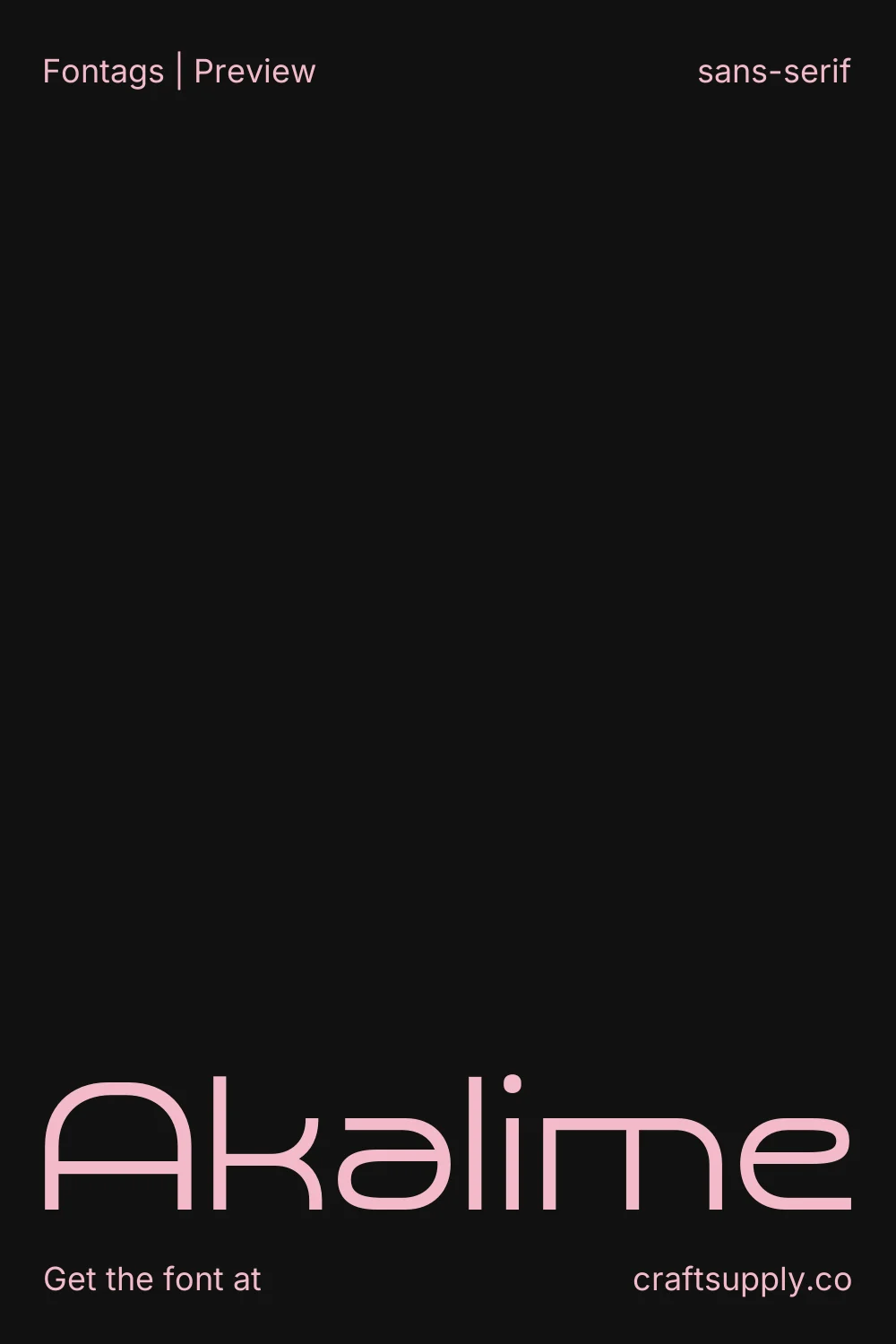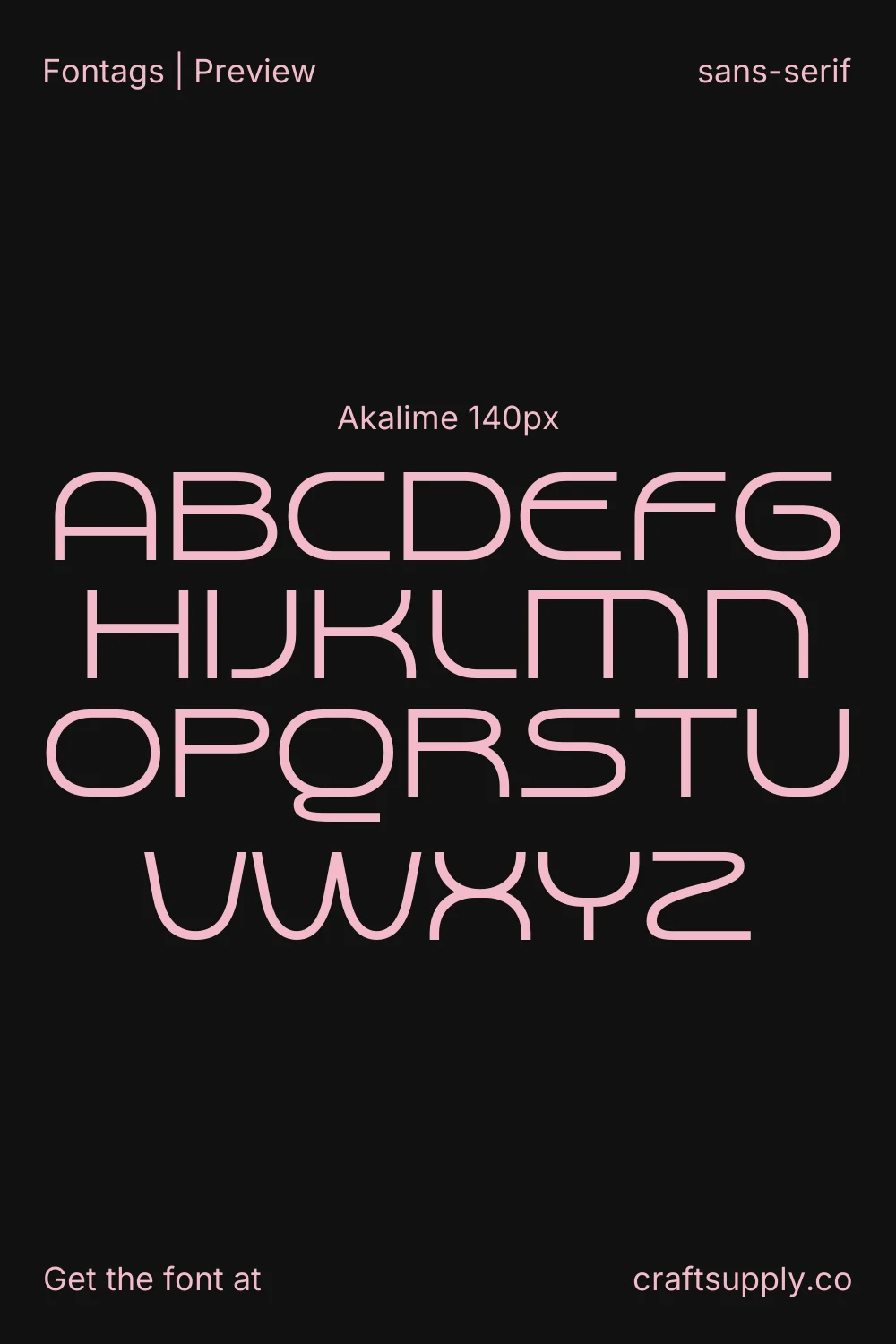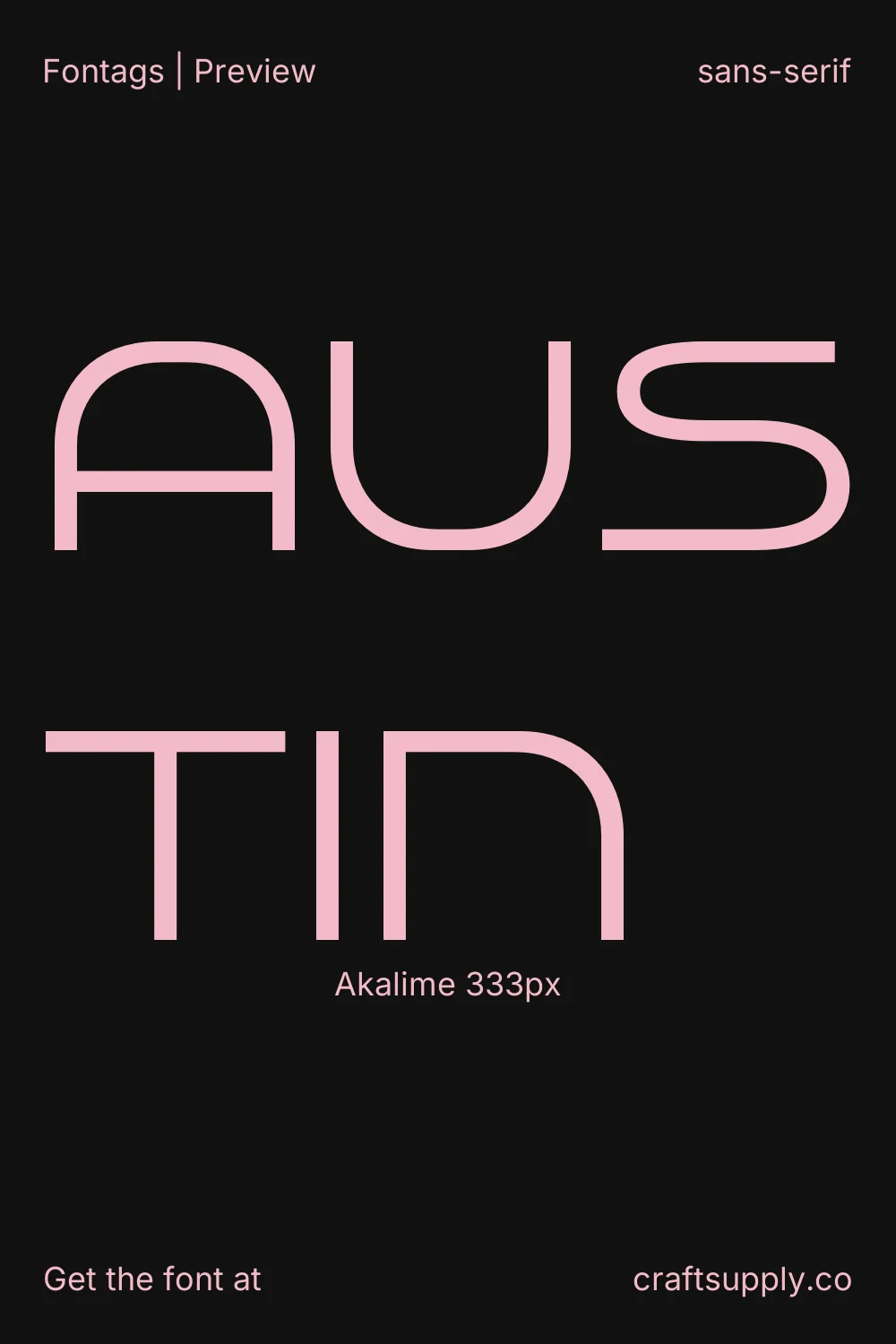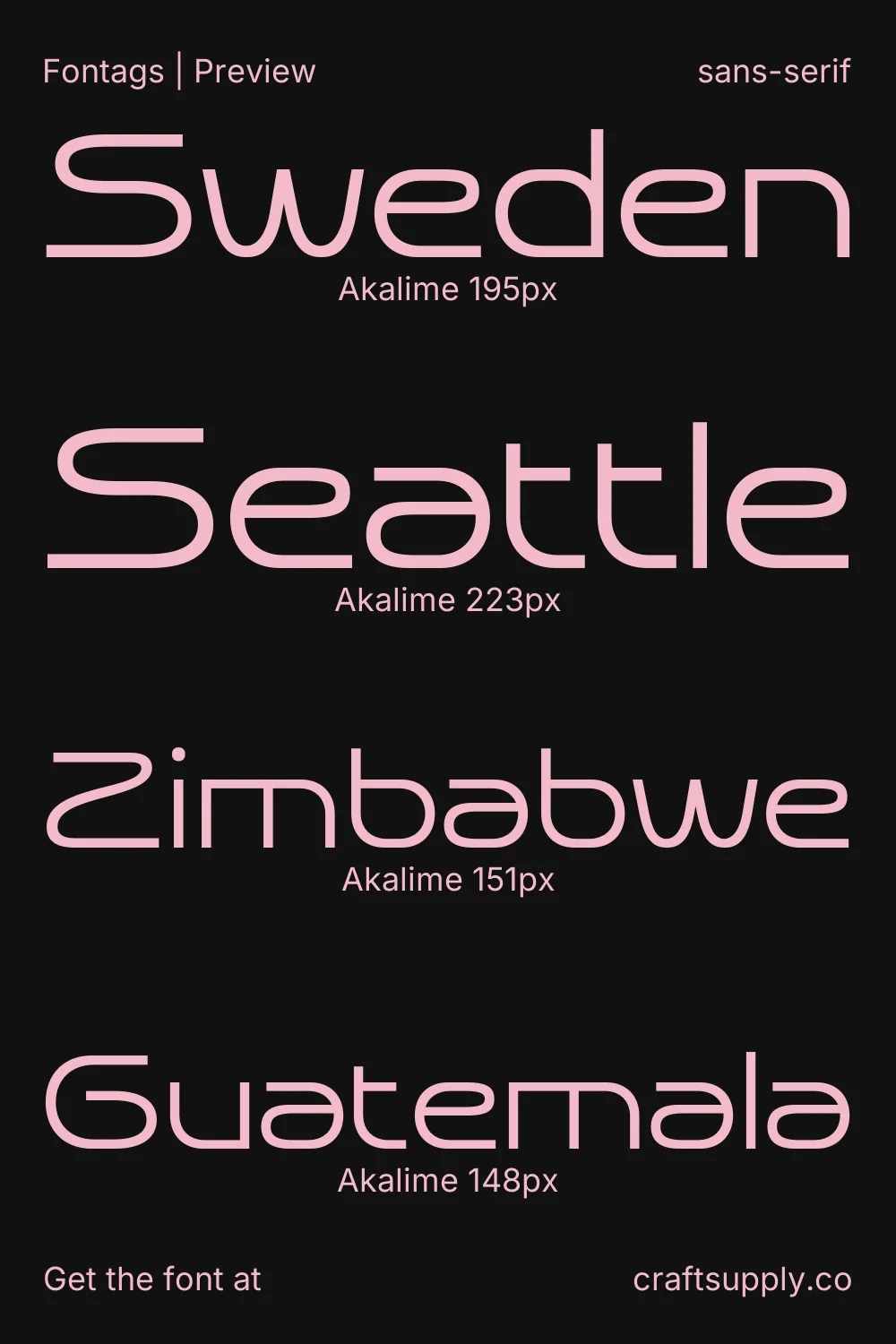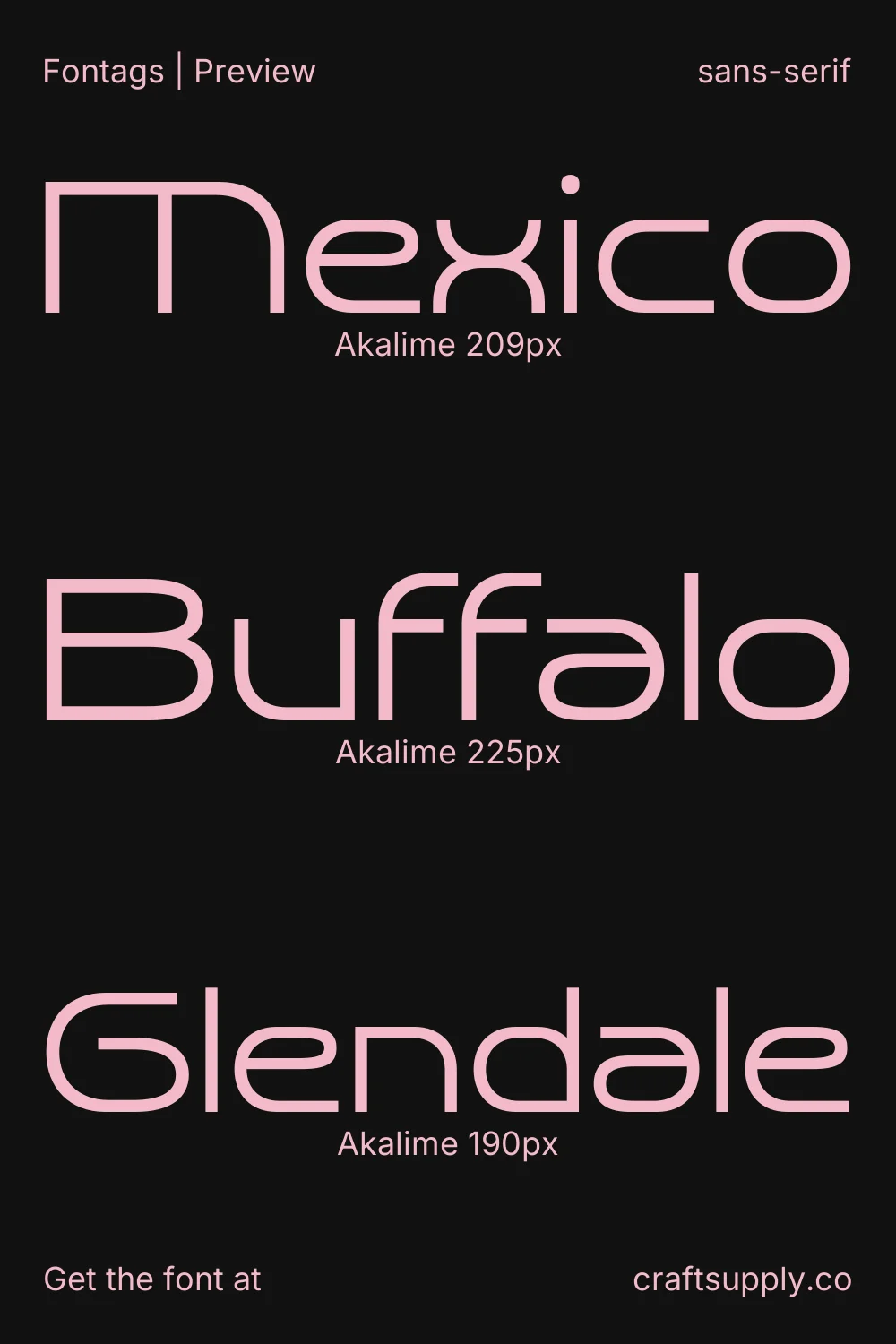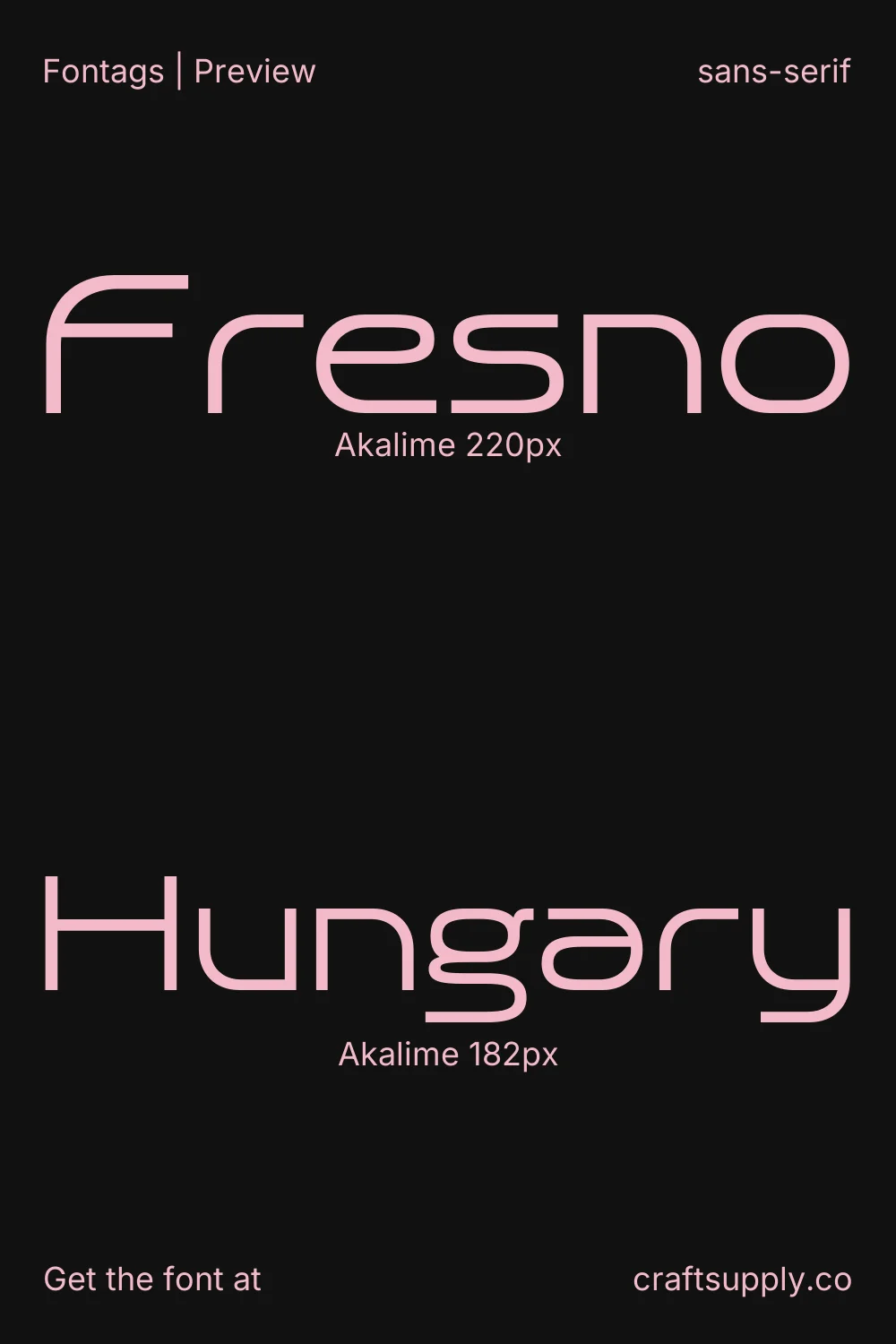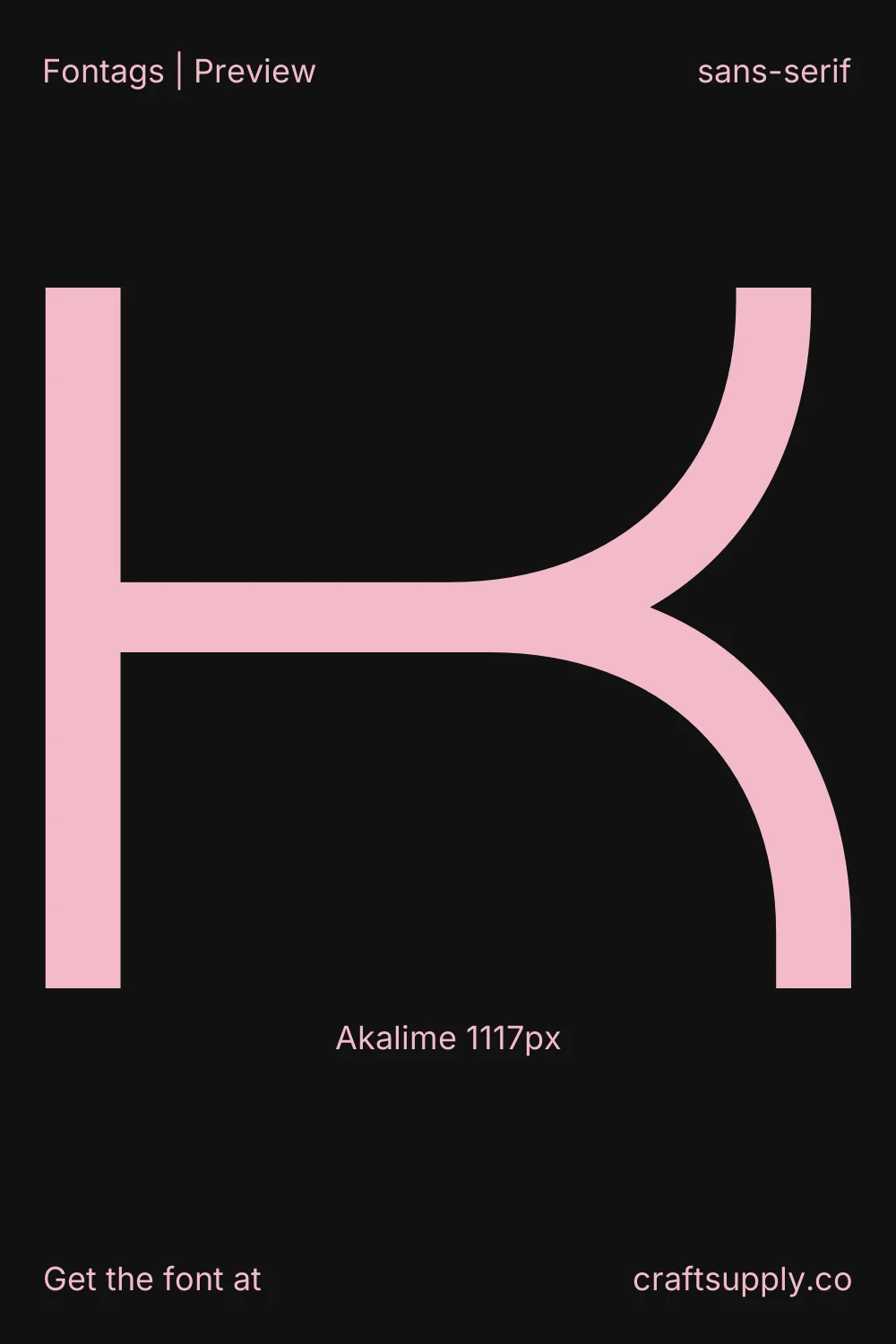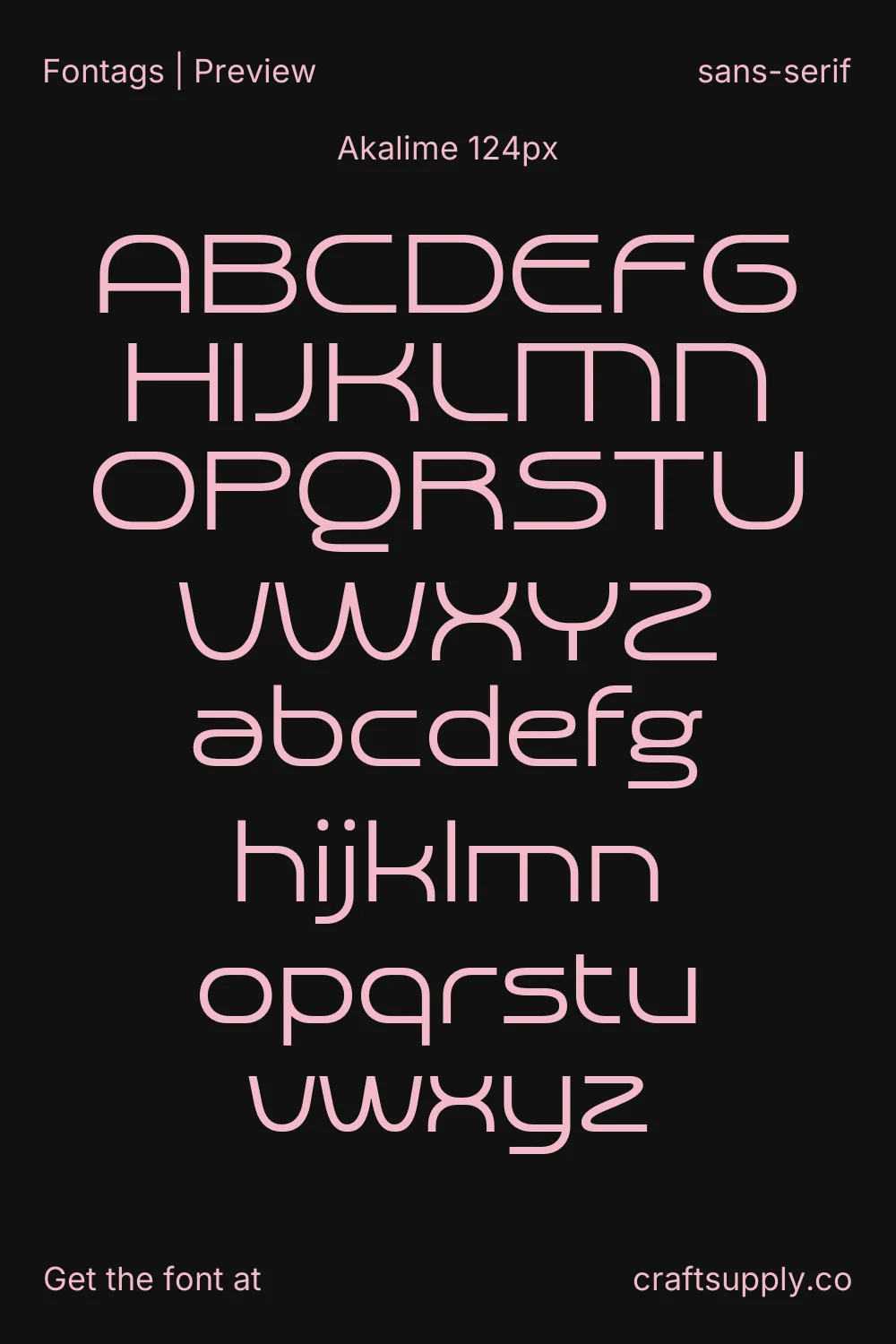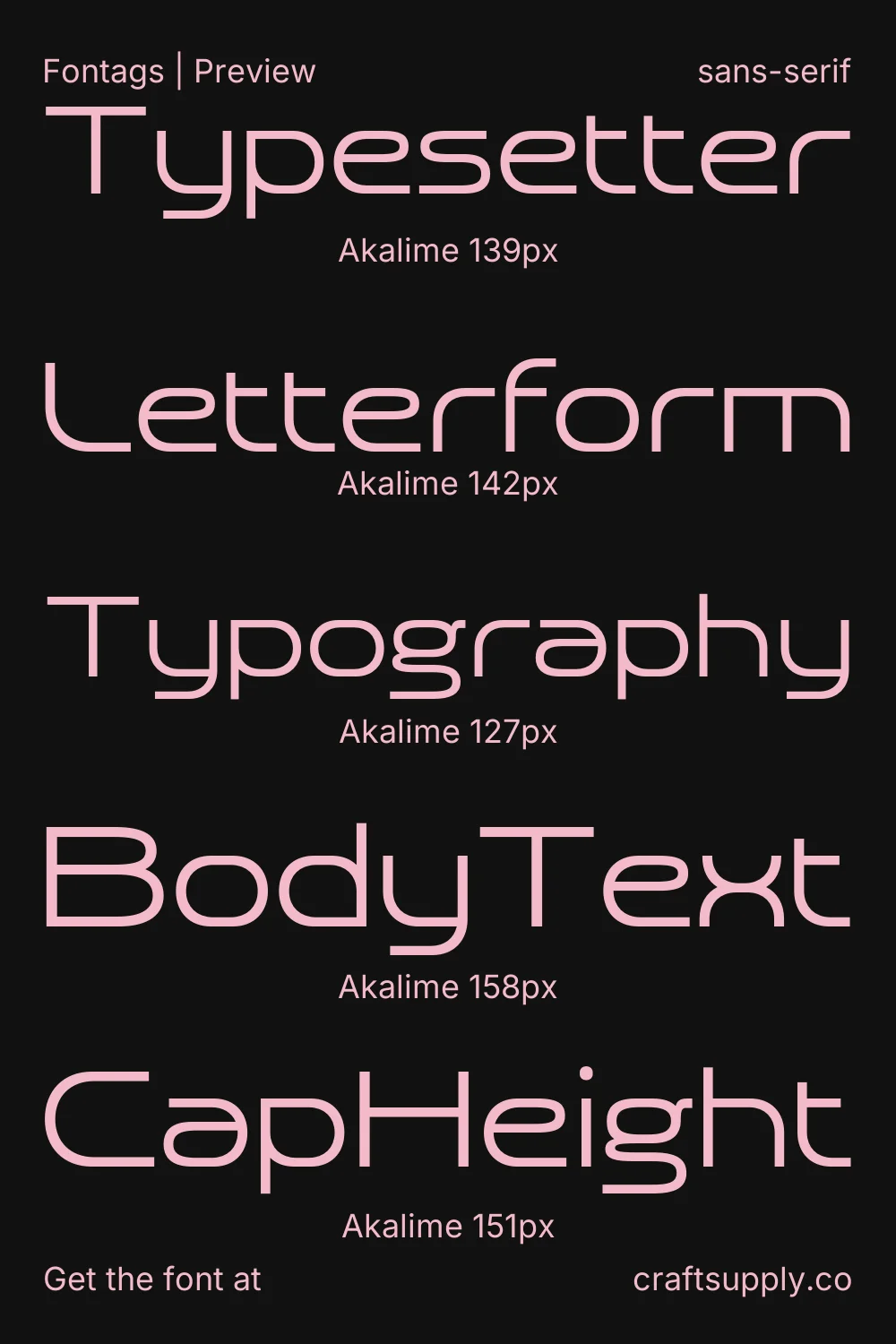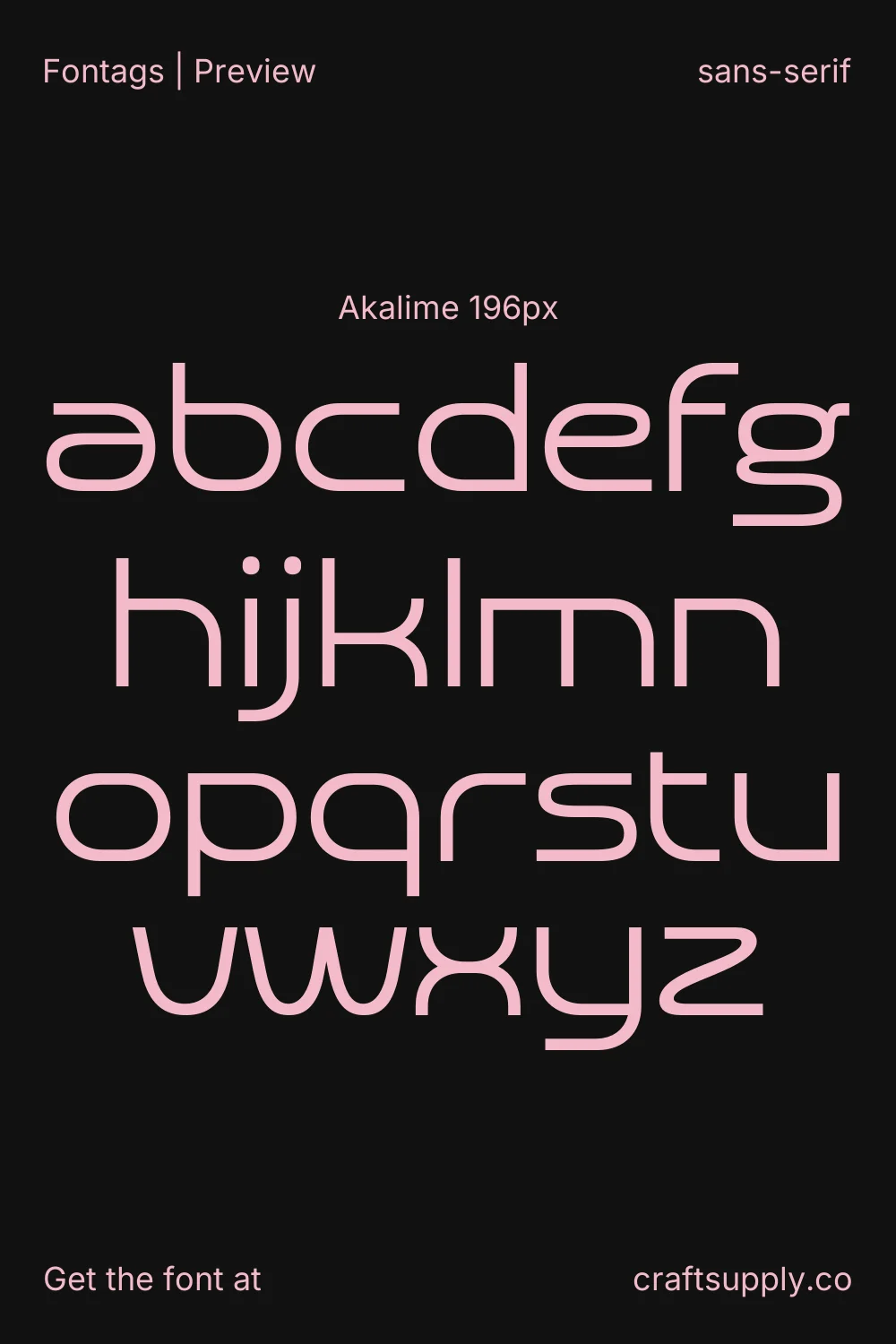
Akalime
Akalime is a sleek monoline sans serif font that marries clean modern lines with a futuristic edge. Its uniform strokes and square proportions make it stand out in digital interfaces, branding, and print designs. With Regular and Italic styles plus multilingual support, it offers versatility for creative projects.